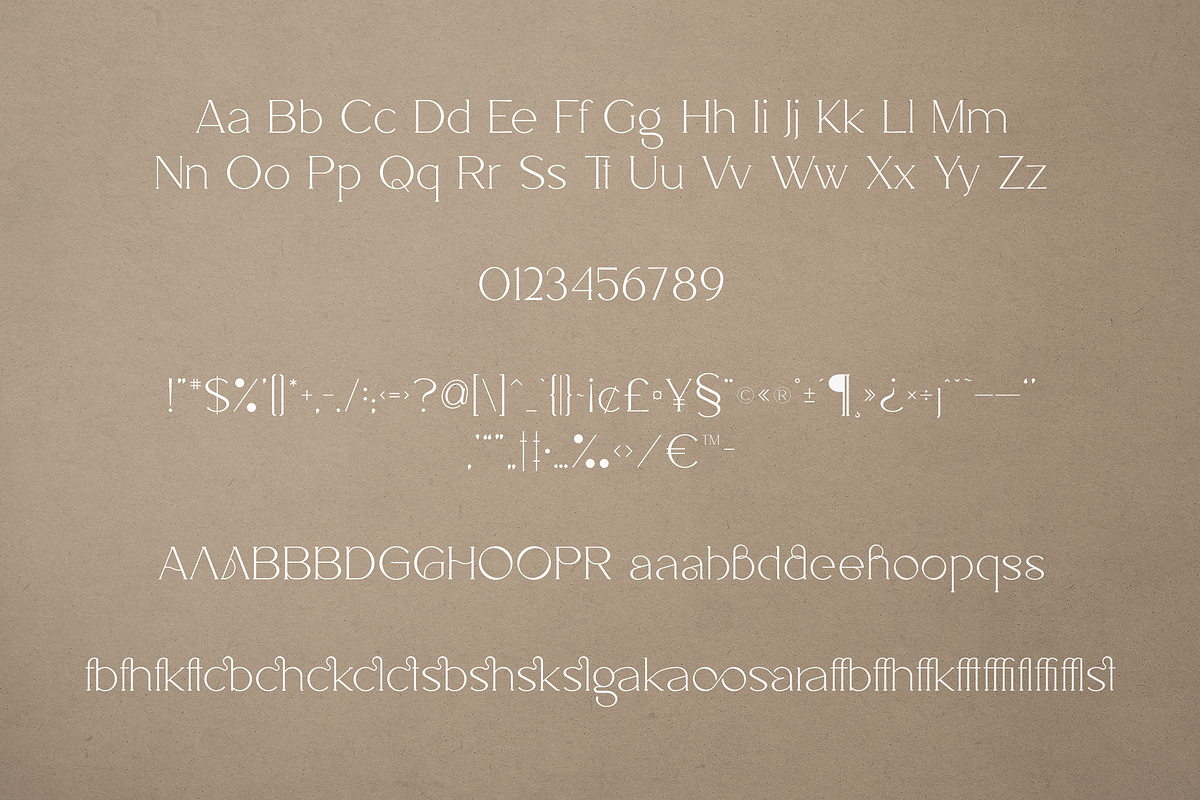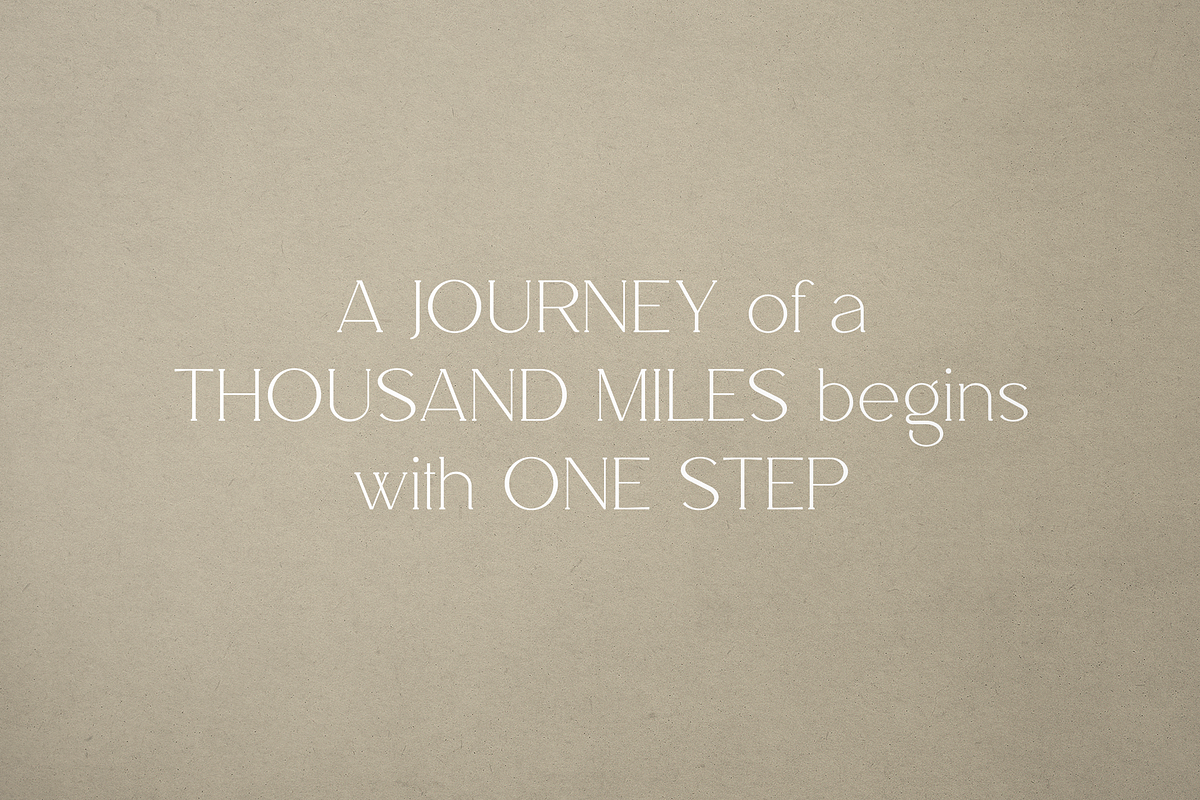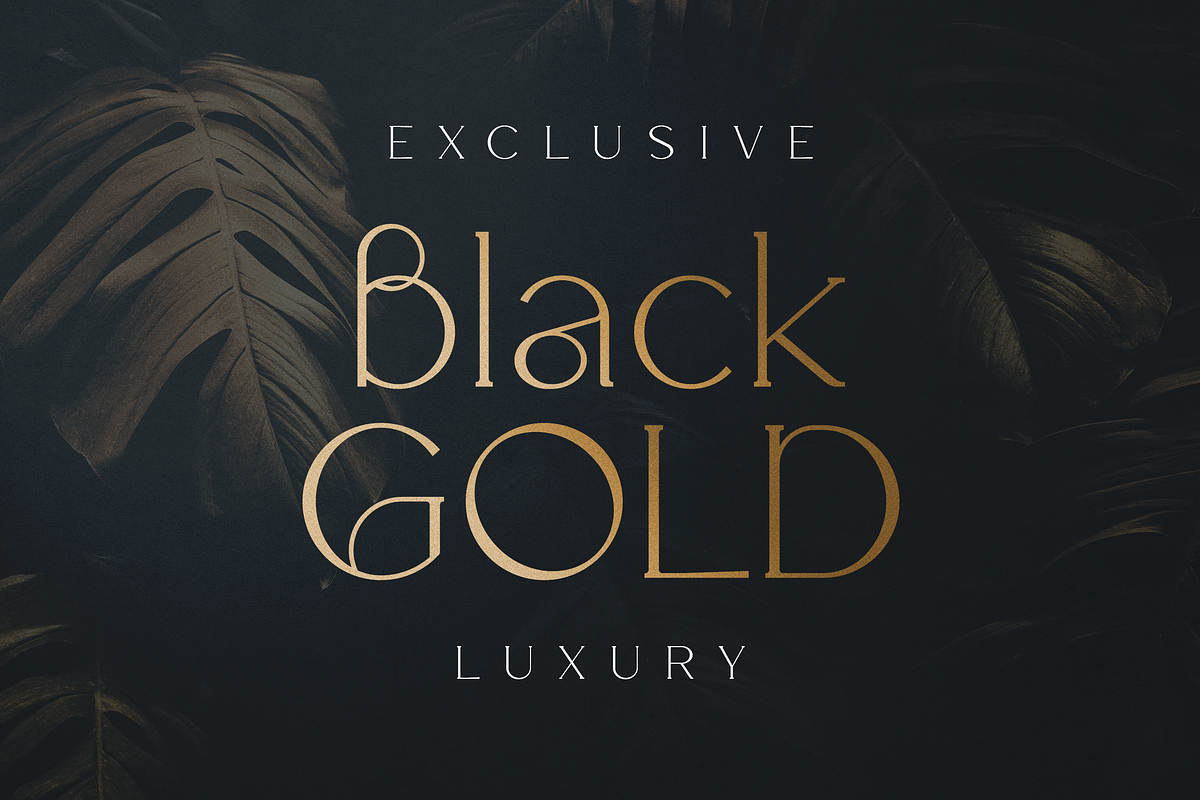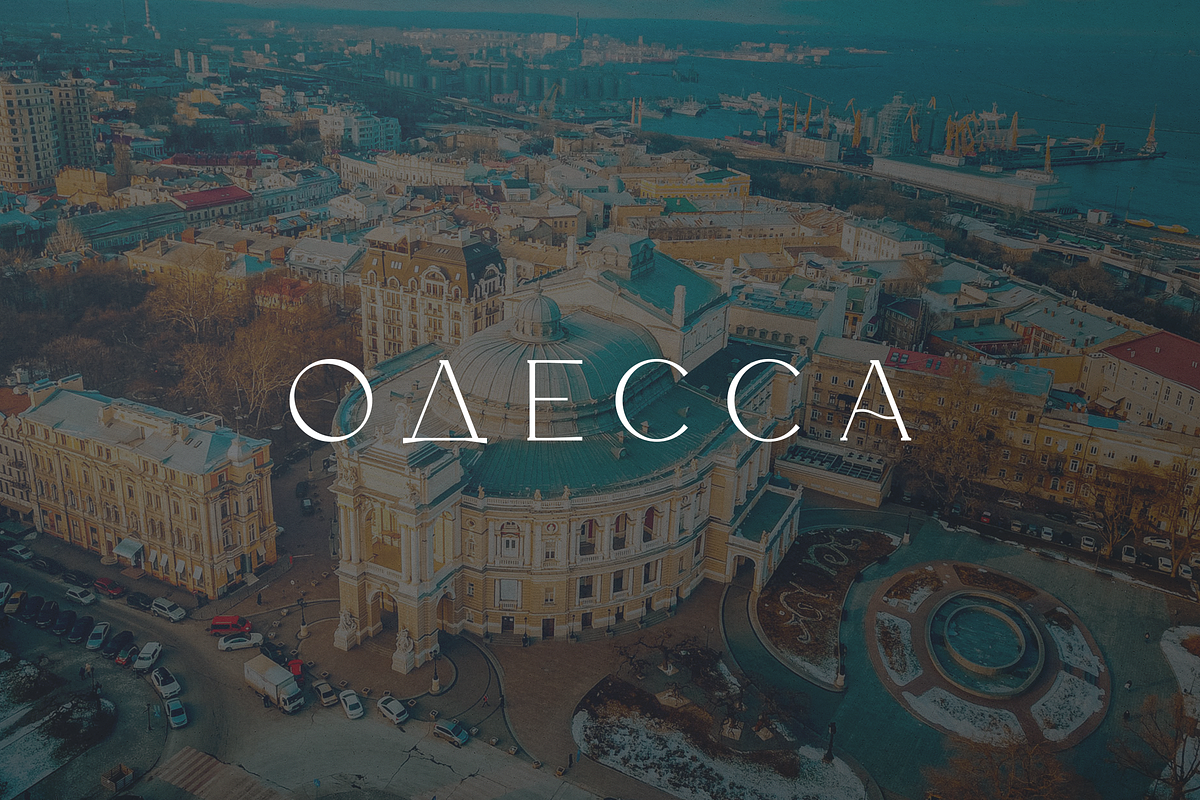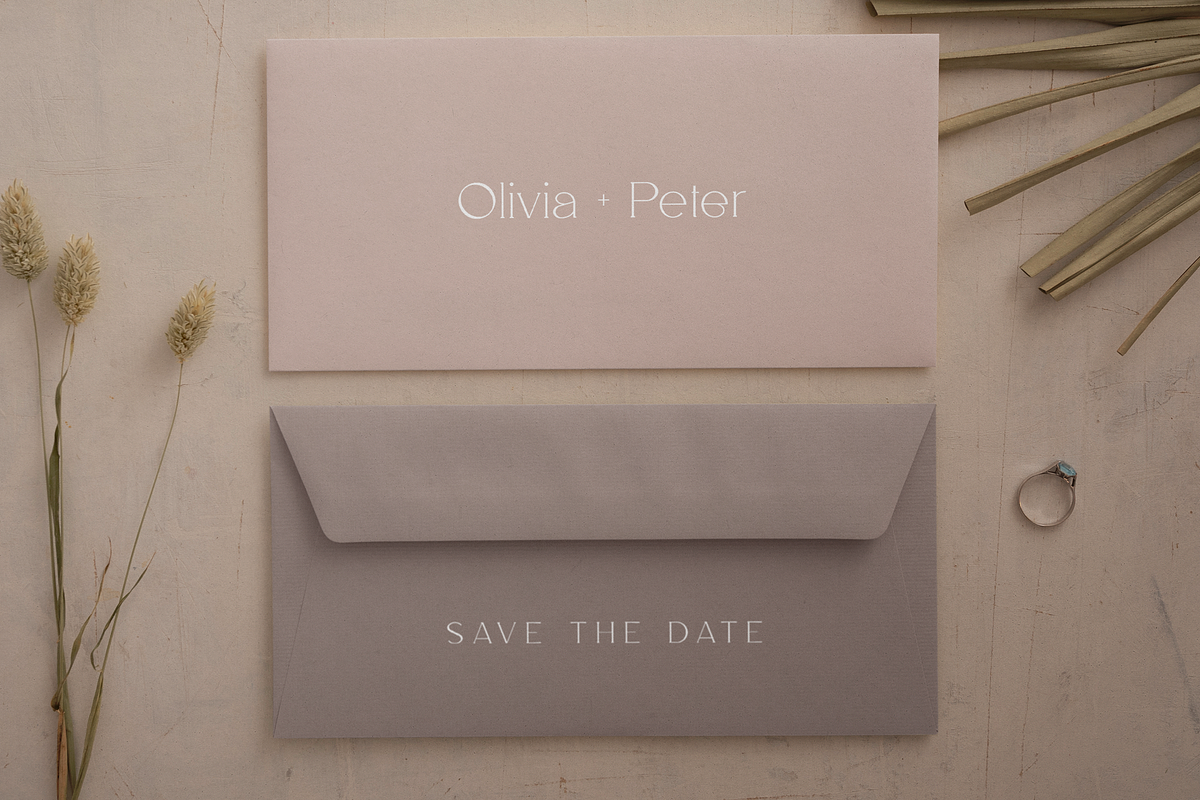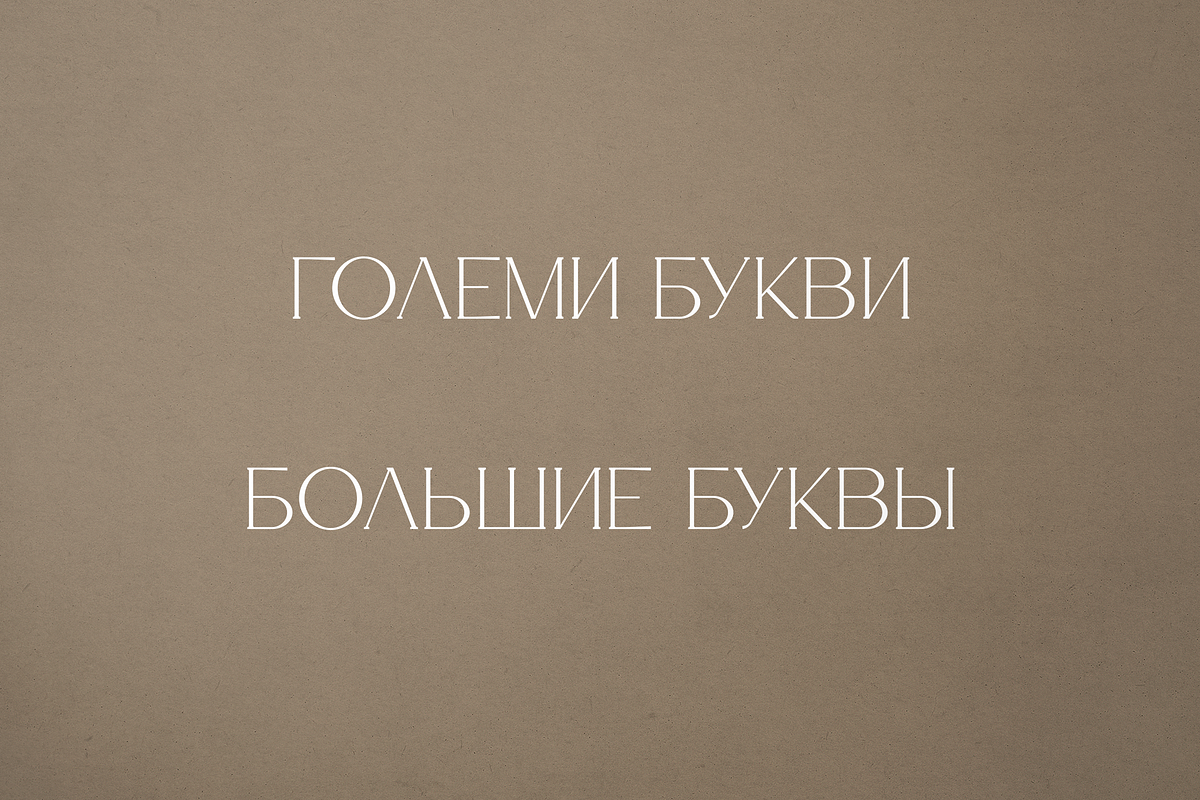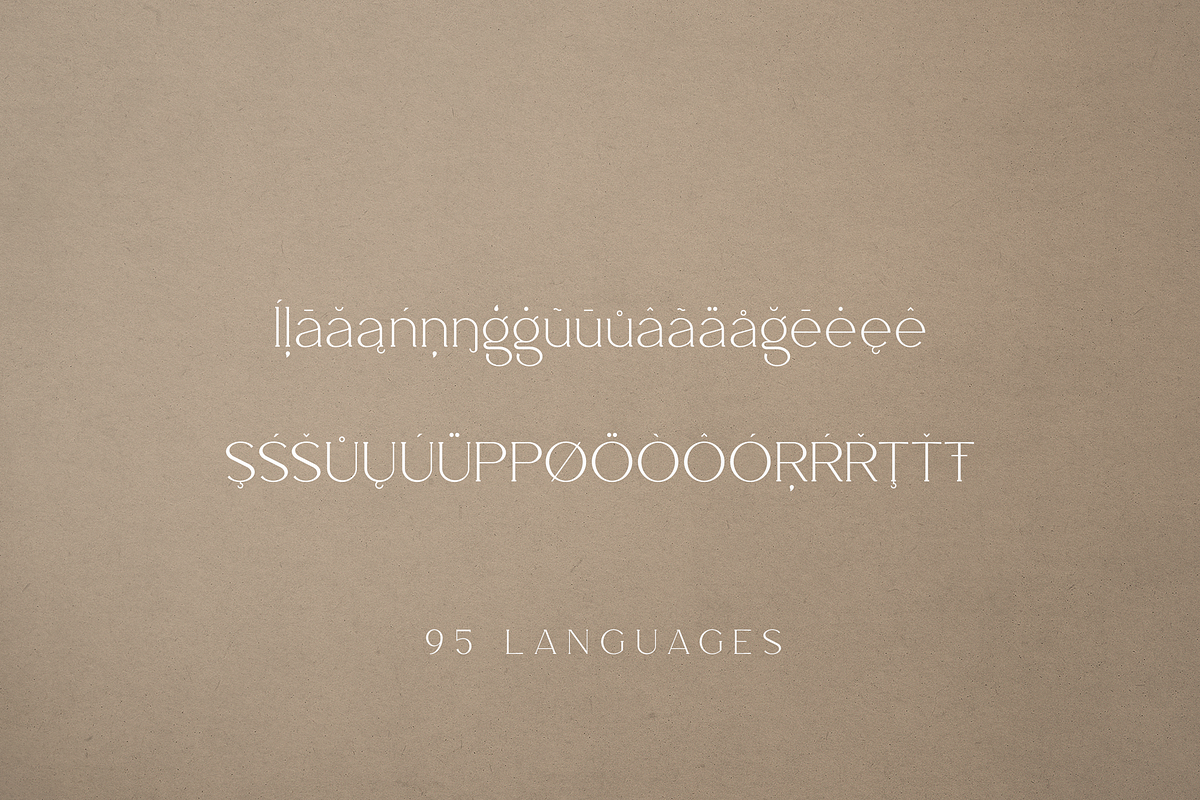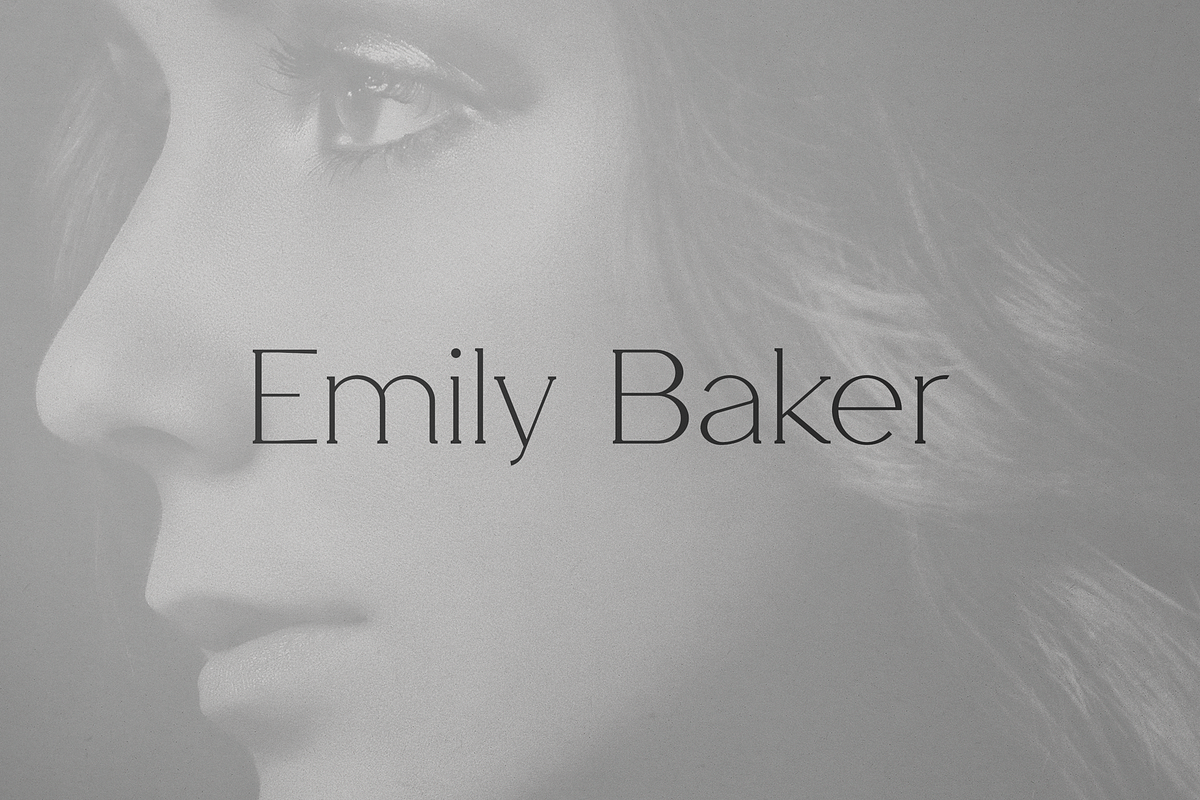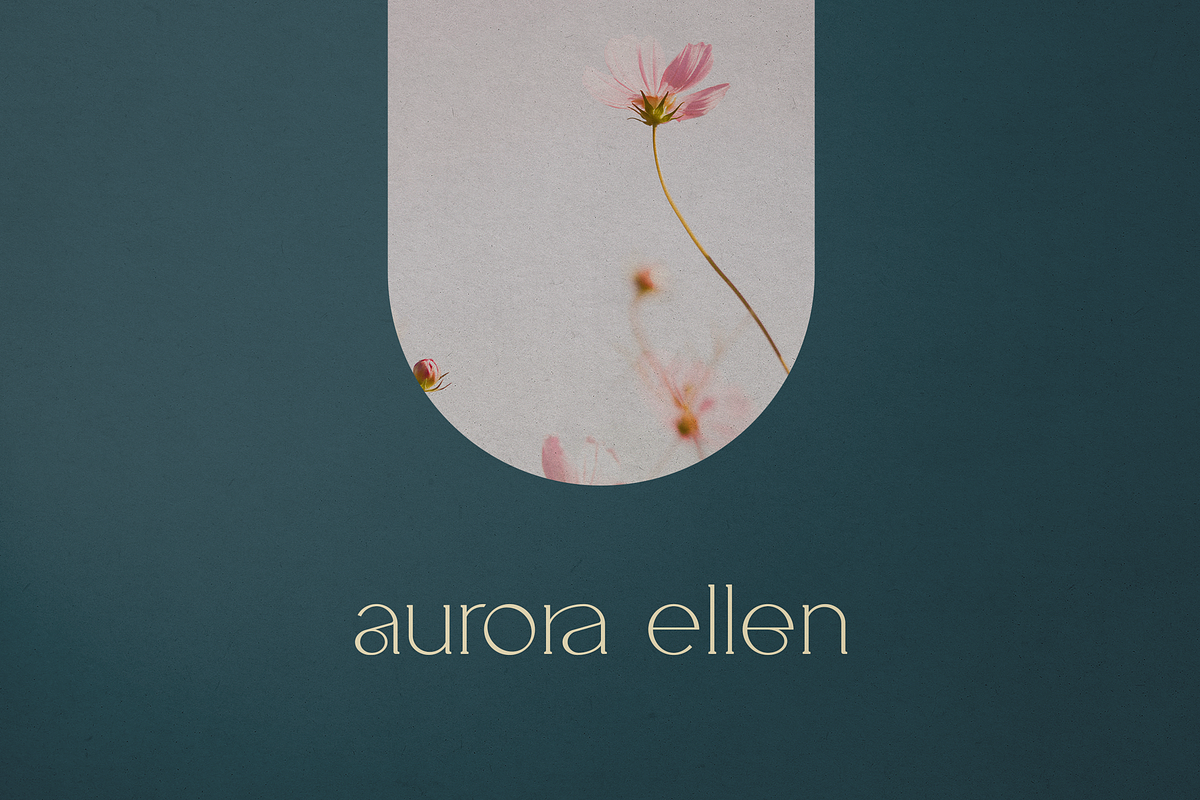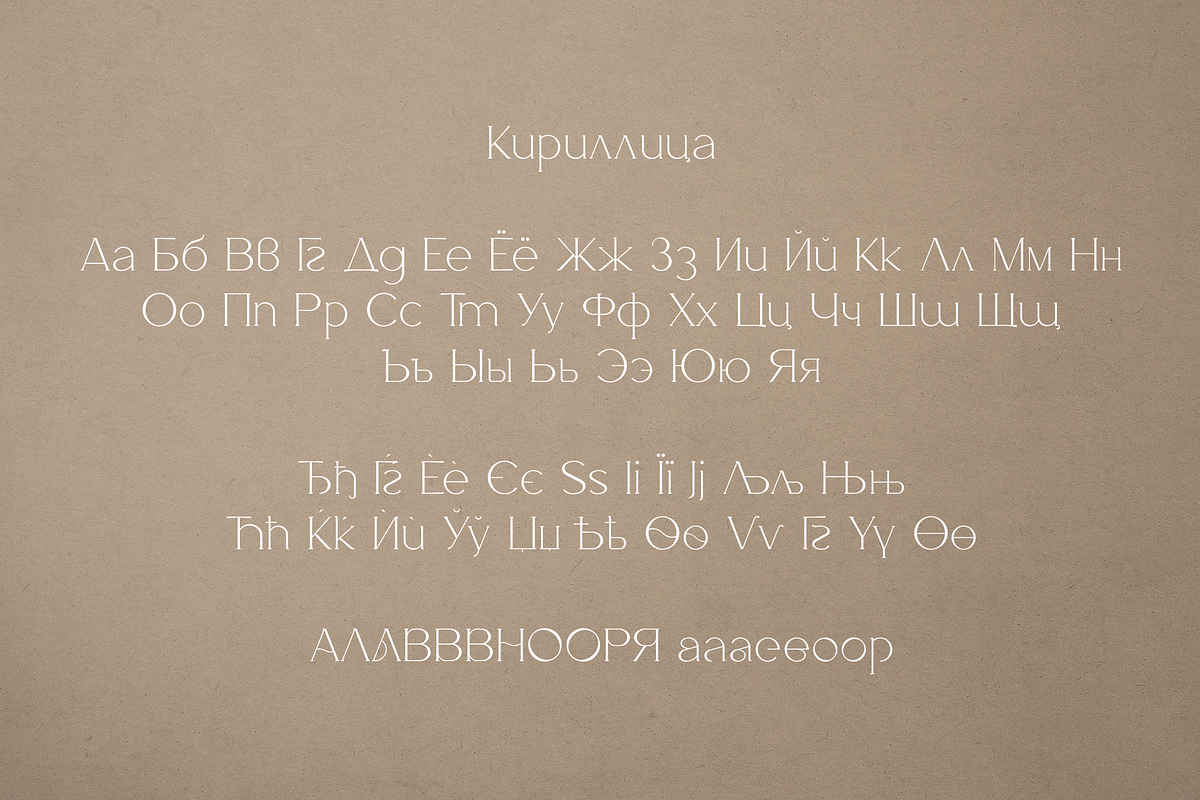
Salve - Elegant Serif + Cyrillic
Introducing Salve - Elegant Serif font - latin and cyrillic
Salve is elegant and wide font loaded with 95 languages support, alternate and ligature glyphs to make you typography truly unique!
Language Support : Belarusian, Bosnian, Bulgarian, Chechen, Macedonian, Russian, Serbian, Afrikaans, Albanian, Asu, Basque, Bemba, Bena, Breton, Chiga, Colognian, Cornish, Czech, Danish, Dutch, Embu, English, Estronian, Faroese, Filipino, Finnish, French, Friulian, Galician, Ganda, German, Gusii, Hungarian, Indonesian, Irish, Italian, Jola-Fonyi, Kabuverdianu, Kalenjin, Kamba, Kikuyu, Kinyarwadna, Litvian, Lithuanian, Lower Sorbian, Luo, Luxembourish, Luyia, Machame, Makhuwa-Meetoo, Makonde, Malagasy, Maltese, Manx, Meru, Morisyen, North Ndebele, Norwegian Bokm ål, Norwegian Nynorsk, Nyankole, Ormo, Polish, Portuguese, Quechua, Romanian, Romansh, Rombo, Rundi, Rwa, Samburu, Sango, Sangu, Scottish Gaelic, Sena, Shambala, Shona, Slovak, Soga, Somali, Spanish, Swahili, Swedish, Swiss German, Taita, Teso, Turkish, Ukrainian, Upper Sorbian, Uzbek (Latin), Volap ük, Vunjo, Walser, Welsh, Western Frisian, Zulu
- Uppercase, lowercase, numeral, punctuation & Symbol
- ligature glyphs
- alternates
- Multilingual support - 95 languages
- Cyrillic support